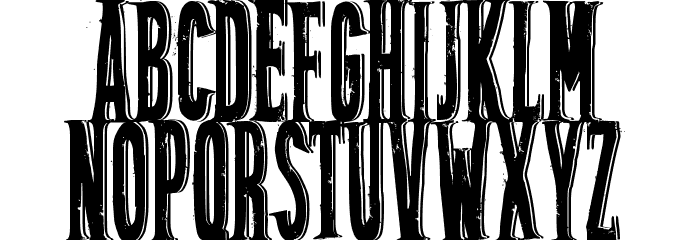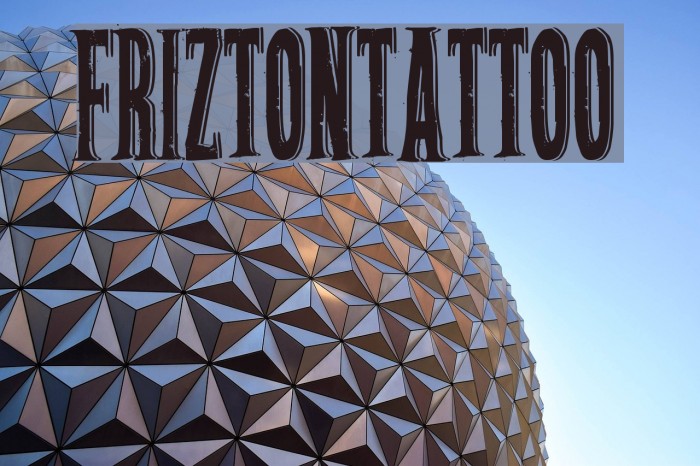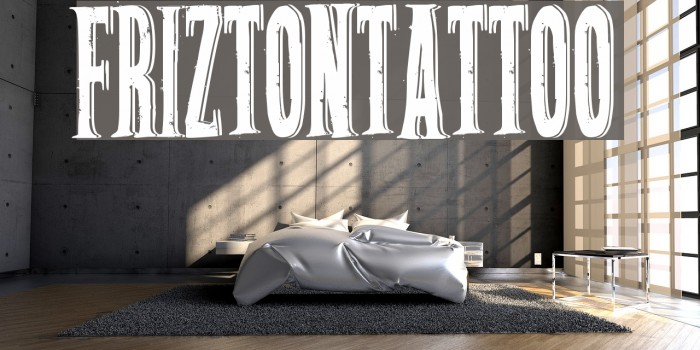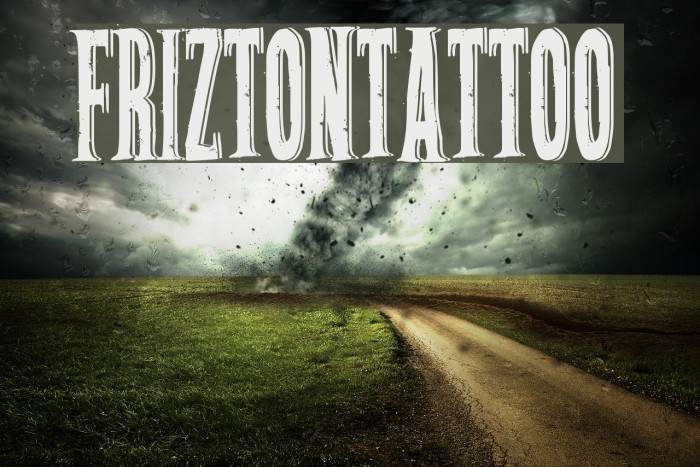
FriztonTattoo Font
This font features a bold, decorative style with a distressed texture that gives it a vintage, tattoo-inspired appearance. The uppercase letters are tall and narrow, with sharp serifs and a slightly condensed form. The distressed effect adds a rugged, worn look, making it ideal for designs that require a touch of edginess and character. The bold strokes and high contrast between thick and thin lines enhance its visibility and impact, making it suitable for eye-catching headlines or artistic projects.
A bold, distressed, tattoo-inspired decorative font with high contrast and sharp serifs.
- Proposed Projects: Ideal for tattoo designs, vintage posters, album covers, and edgy branding projects.
- Overall Style: Vintage, Decorative